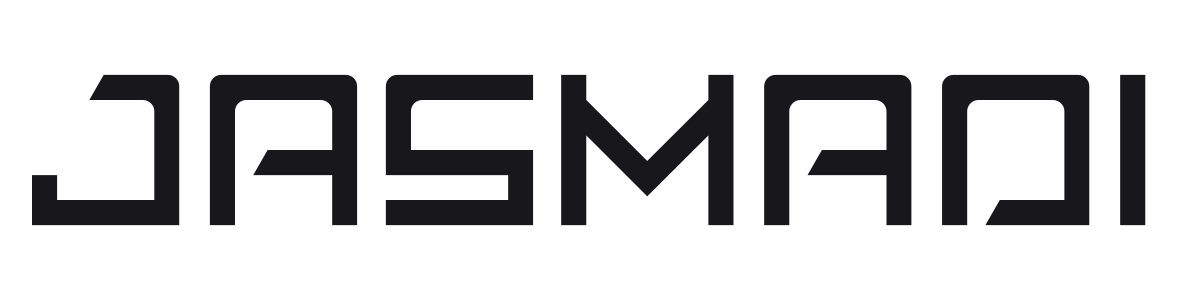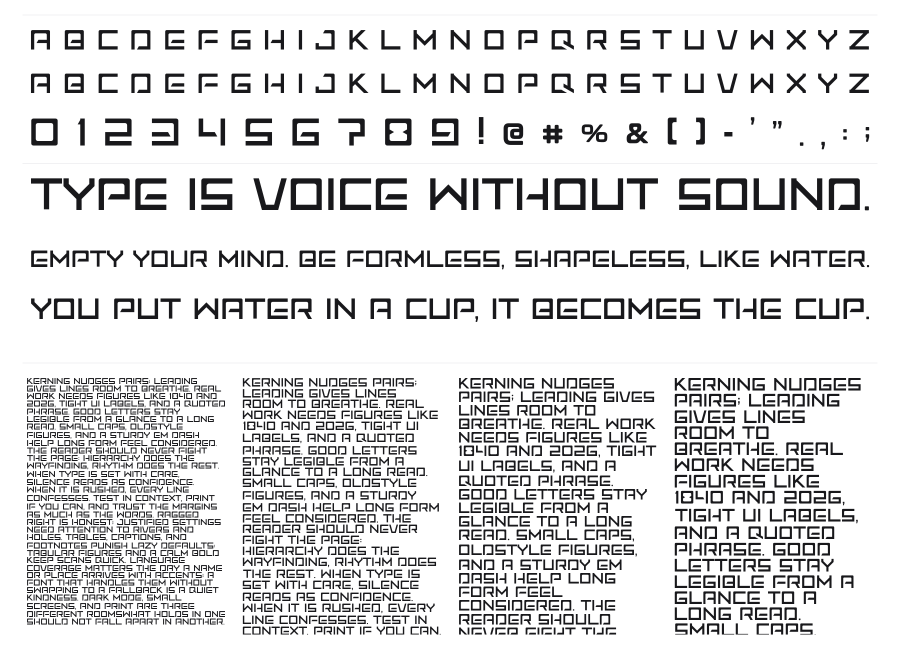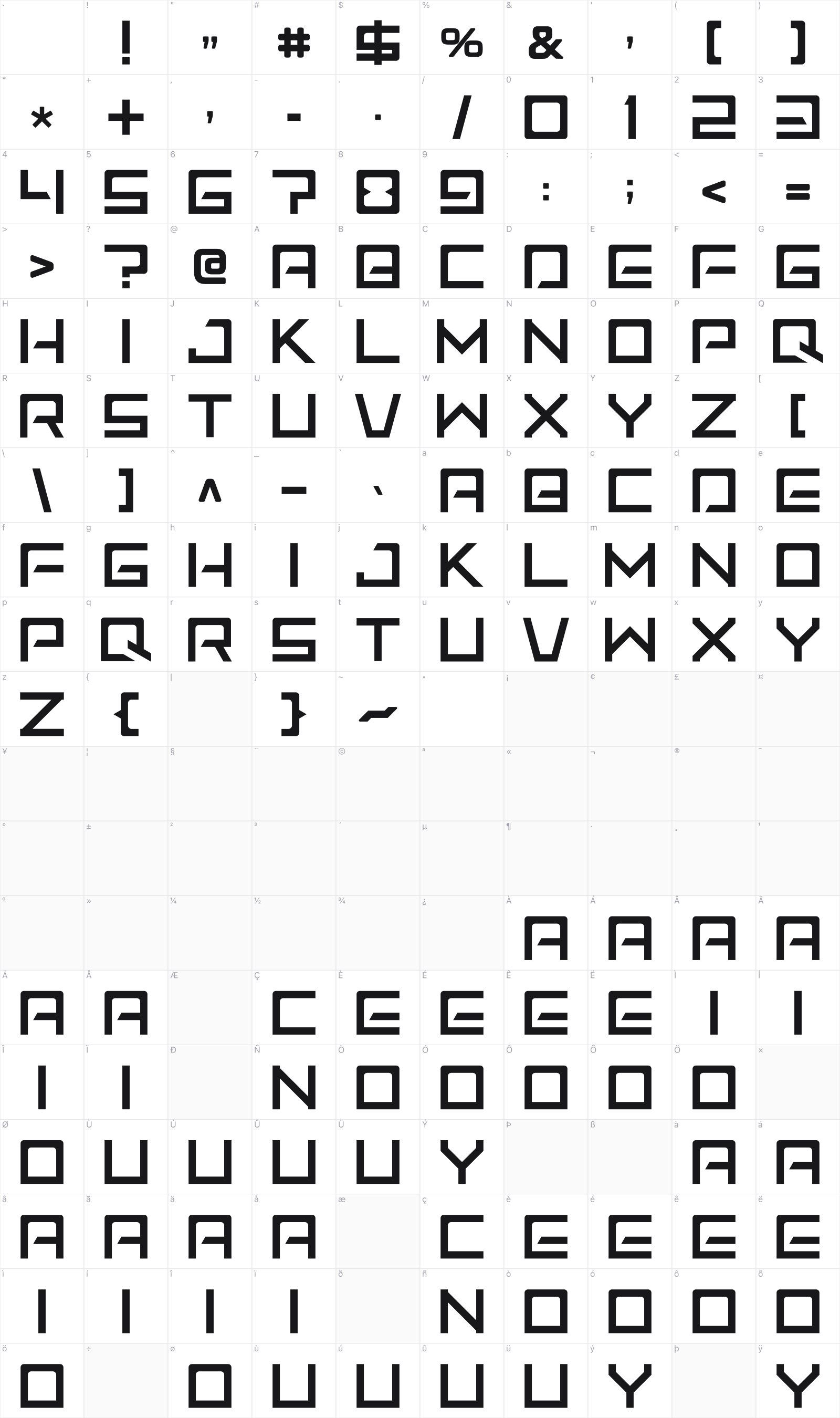
Jasmadi
Jasmadi is a square geometric sans built entirely from right angles and flat terminals, stripping away every curve in favor of a strict modular grid. The result is a typeface that reads as machine-made and futuristic, with wide, open proportions that give it presence at large sizes. It fits naturally in gaming, tech branding, and sci-fi contexts where a cold, engineered voice is the point.